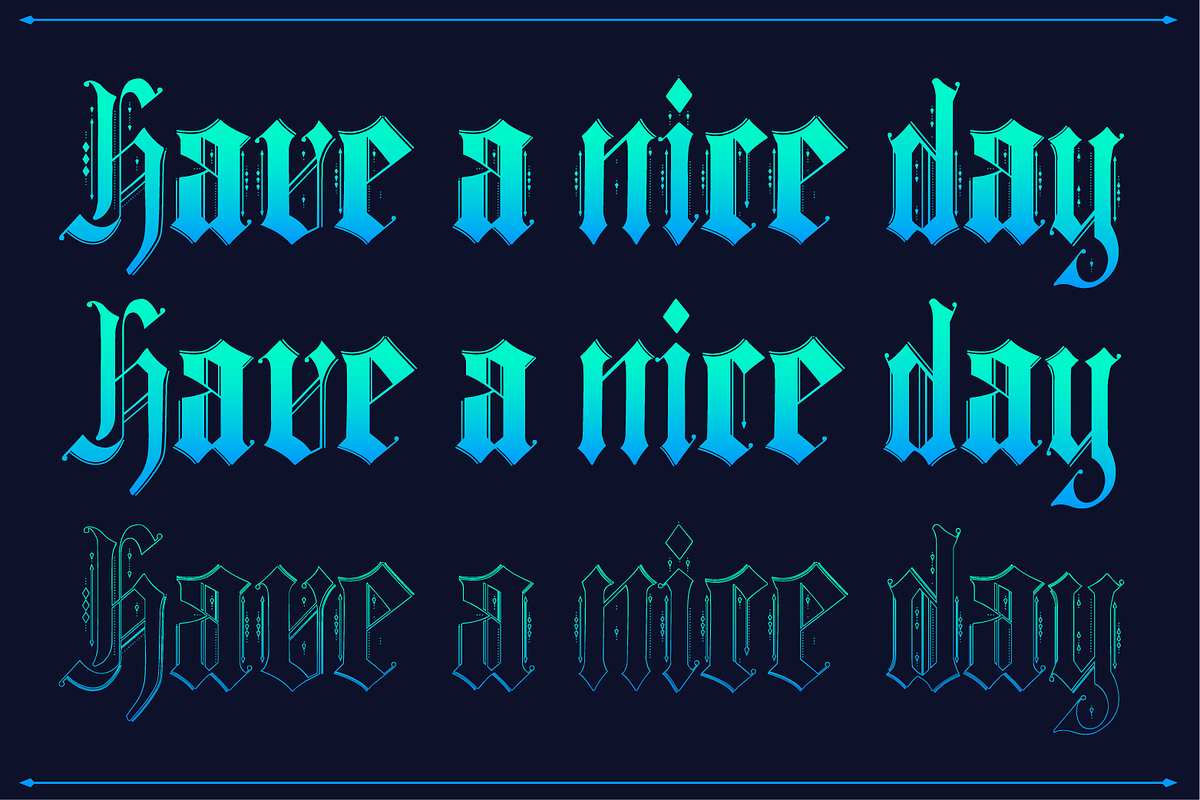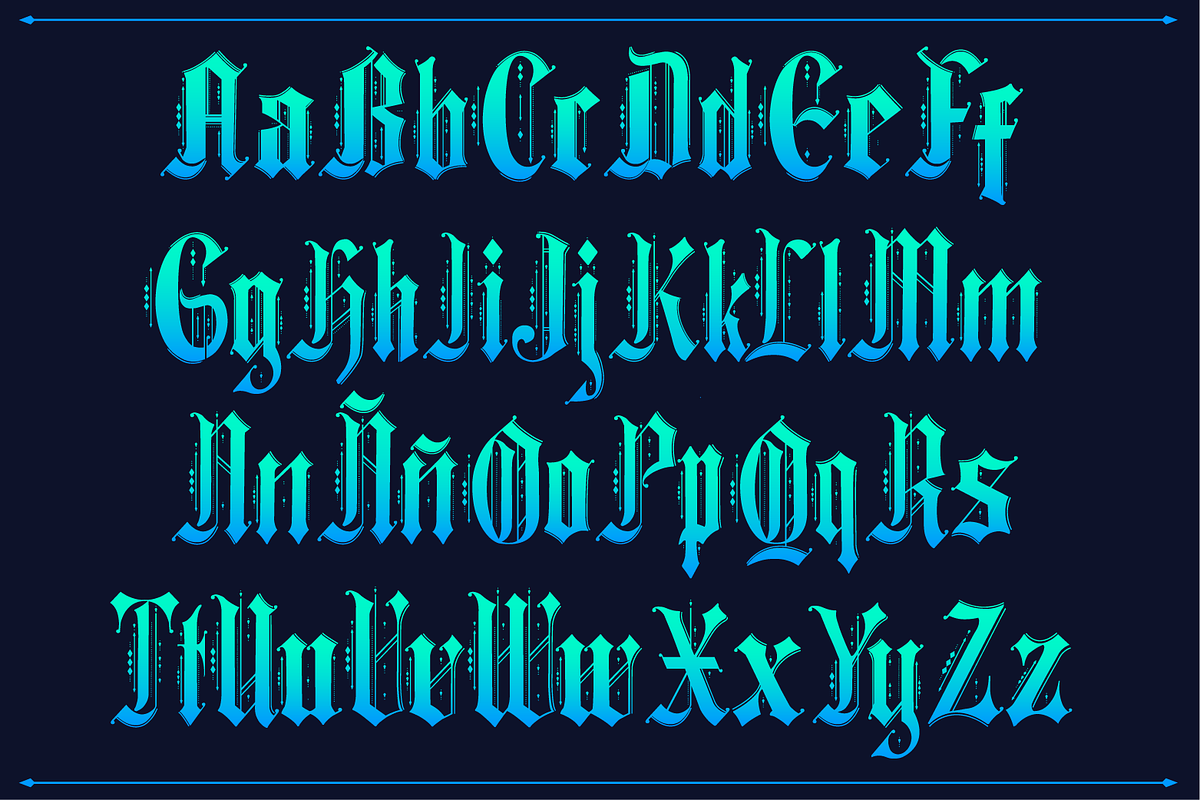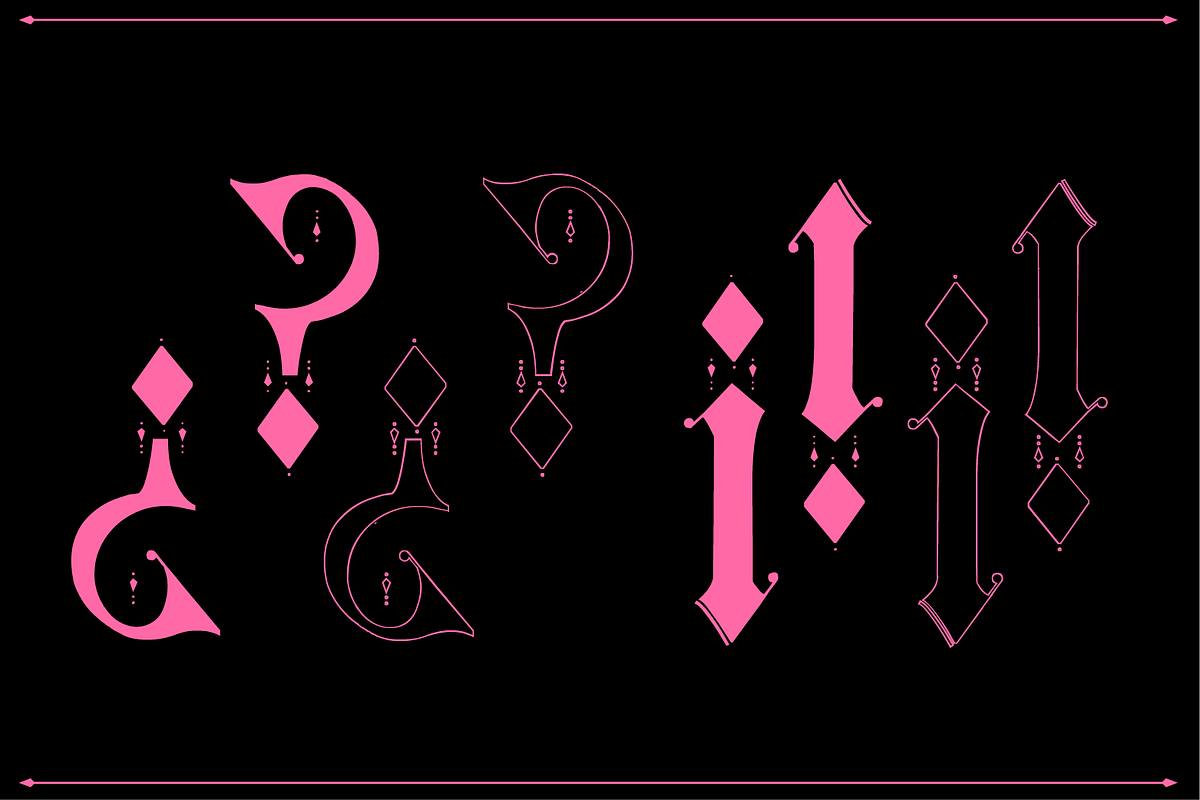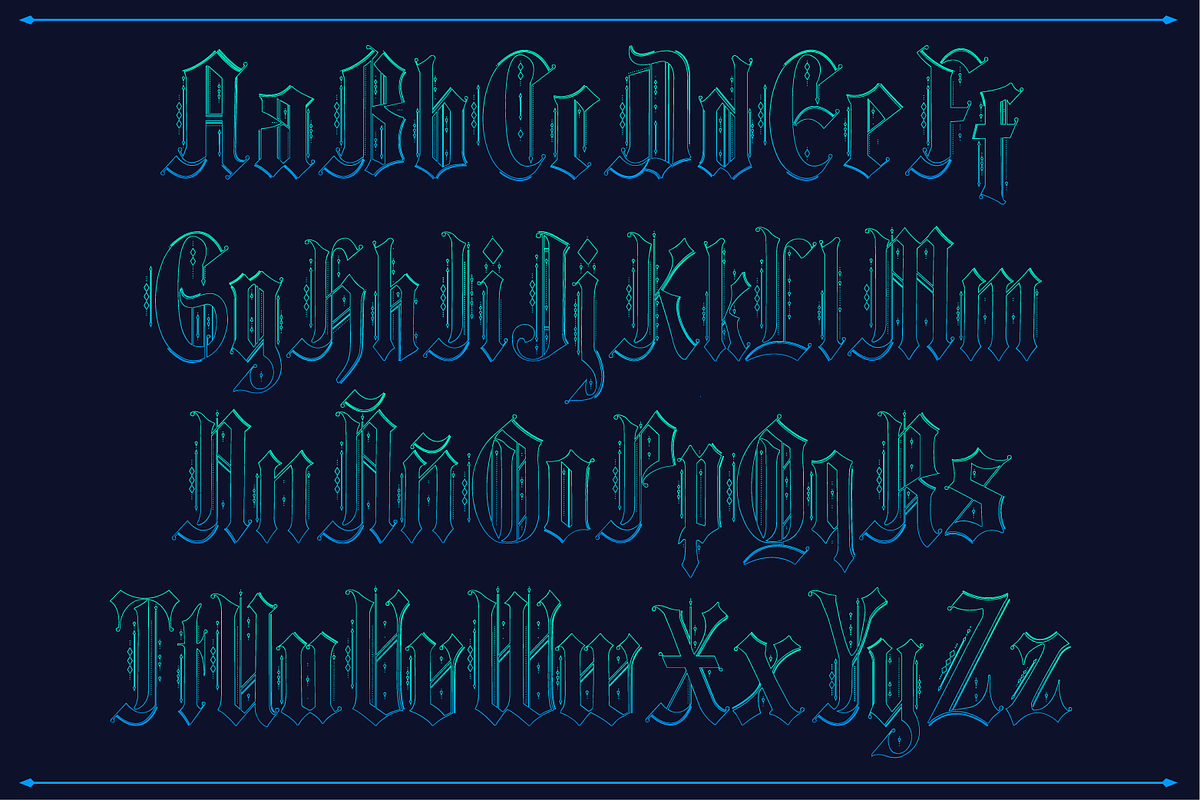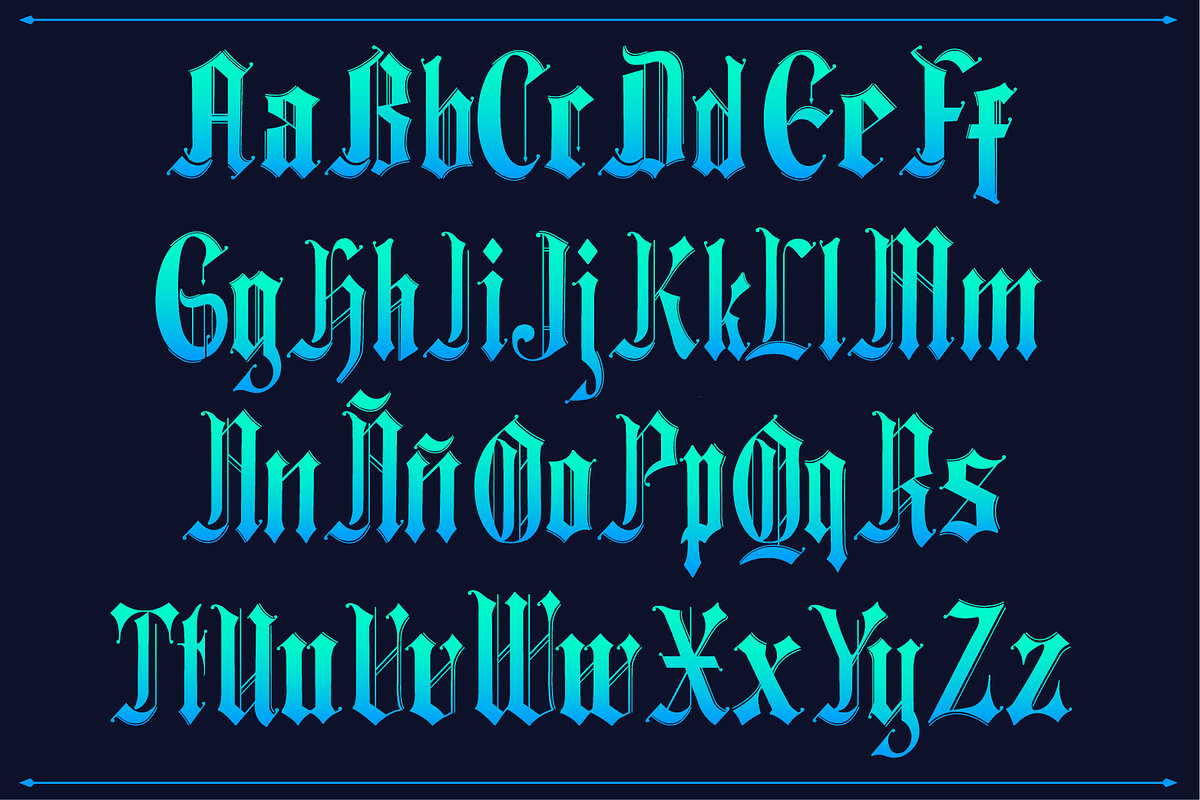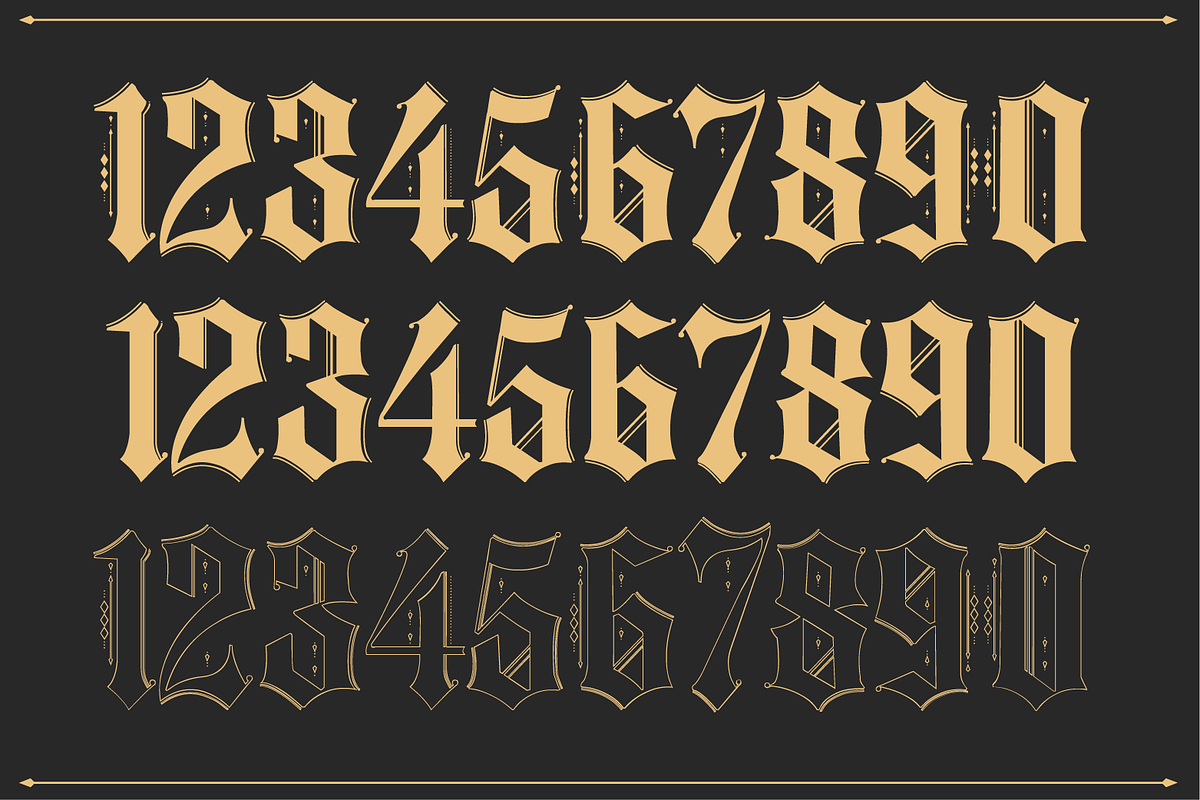
Ethelvina Font
Ethelvina Font by yaisalinas is a font selected for branding, posters, packaging, typography.
Why Ethelvina Font is worth a look
Ethelvina Font by yaisalinas fits naturally into Branding, posters, packaging, typography.